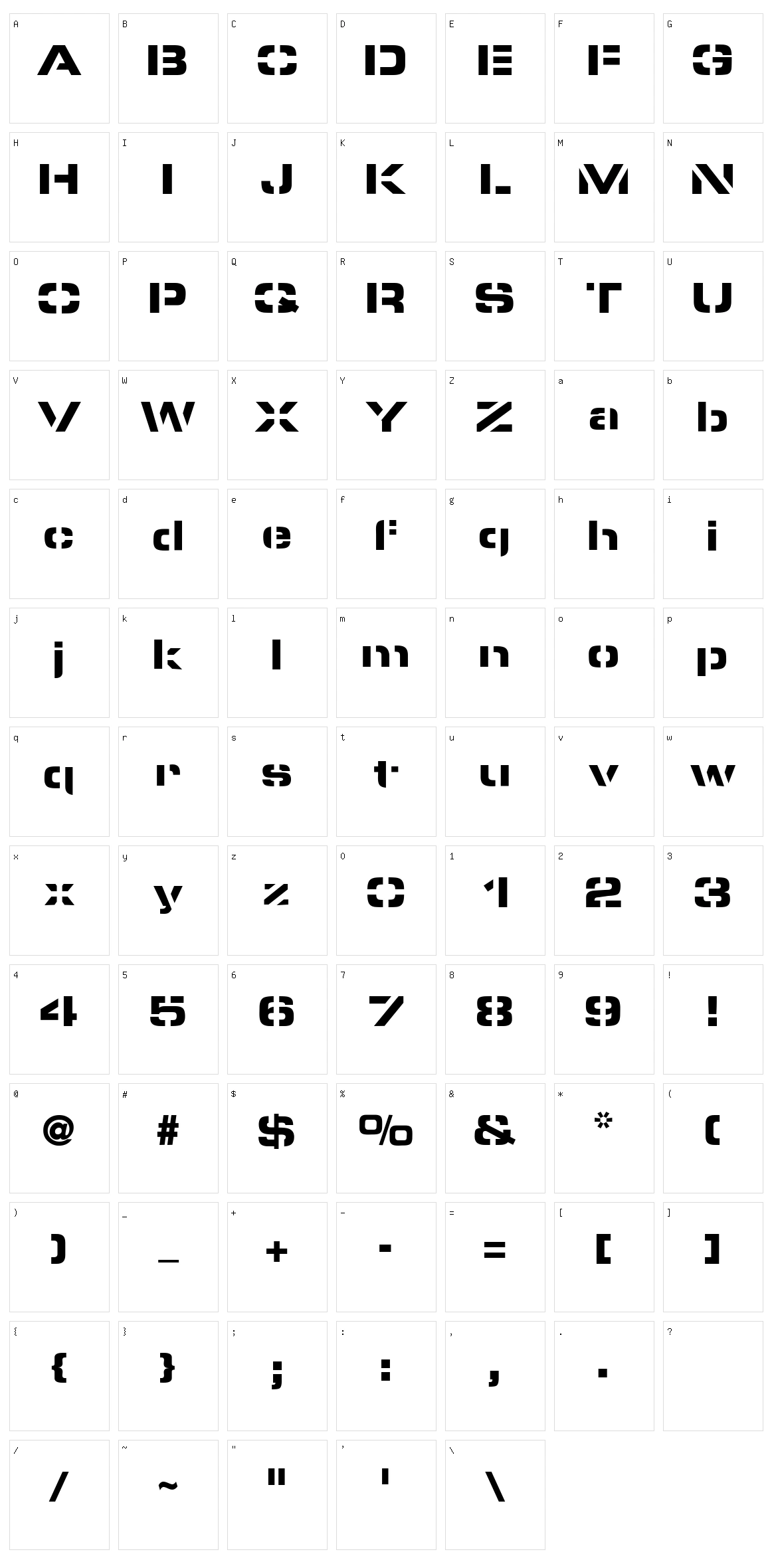
The free font Pyrostyle is carefully designed by Marley Did It, showcasing a thoughtful balance of creativity and usability and falls under the Stencil font style. When you download the ZIP file, it contains only 27.47 KB of font files, making it lightweight and quick to download. Please review the license details below to understand permitted usage and distribution rights. If license information is not available, we recommend using this font for personal projects only or contacting the author directly for commercial usage permissions.